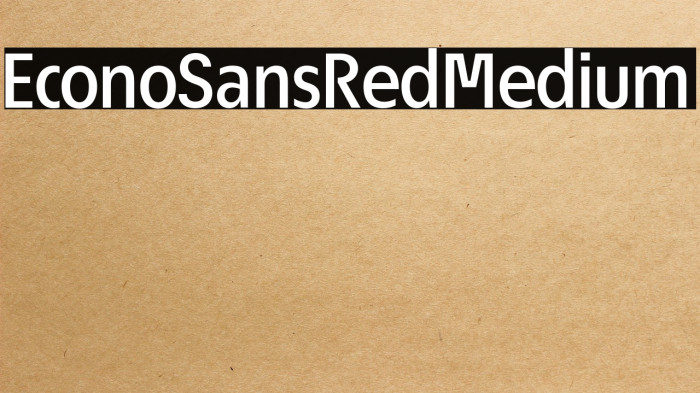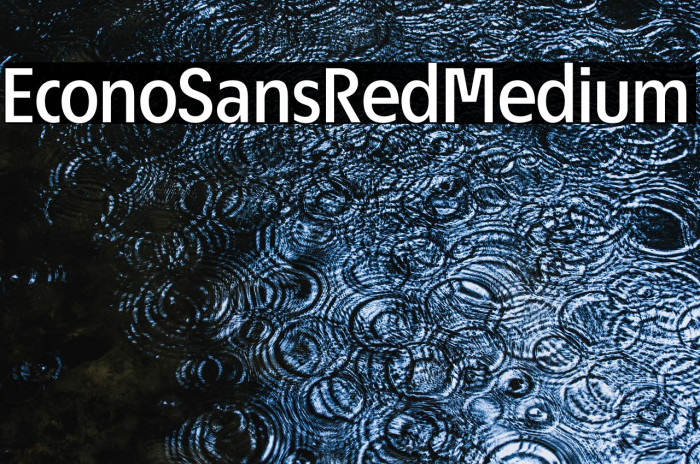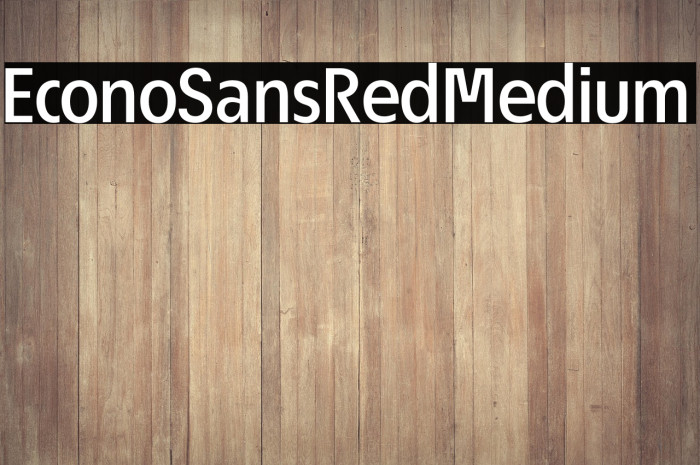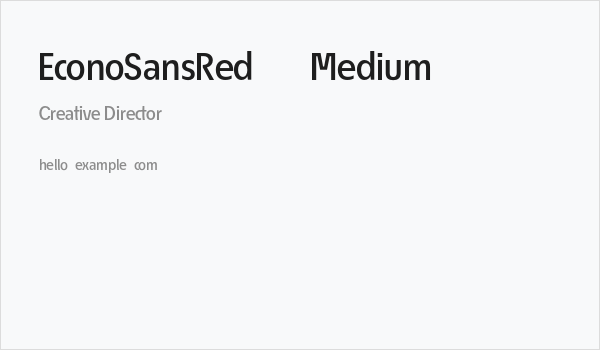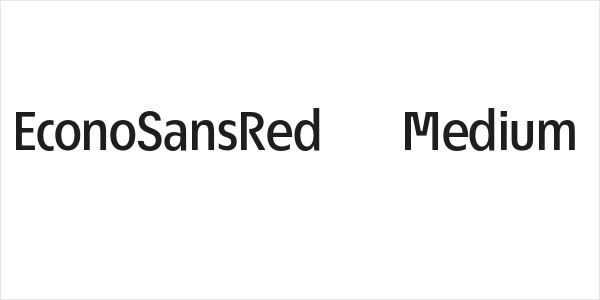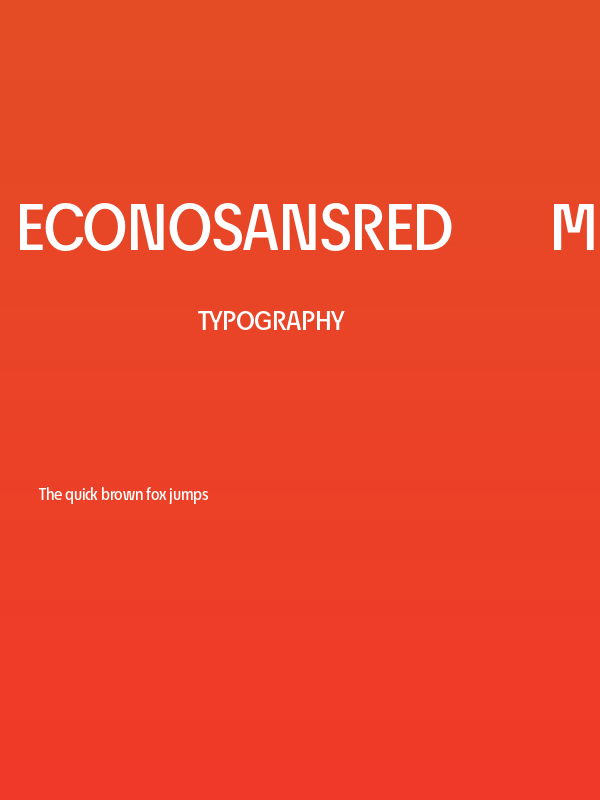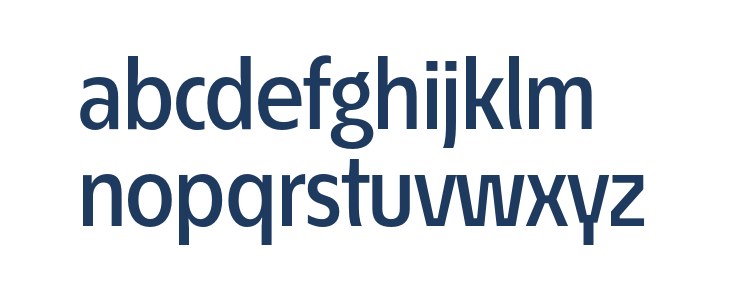
EconoSansRed-65Medium Font
EconoSansRed-65Medium Description
This font features a clean and modern sans-serif design, characterized by its straightforward and geometric letterforms. The uppercase letters are bold and assertive, while the lowercase letters maintain a consistent and harmonious flow. The font exhibits a uniform stroke width, contributing to its balanced and professional appearance. The spacing between characters is normal, ensuring readability and clarity. Its simplicity and versatility make it suitable for a wide range of applications, from digital interfaces to print media.